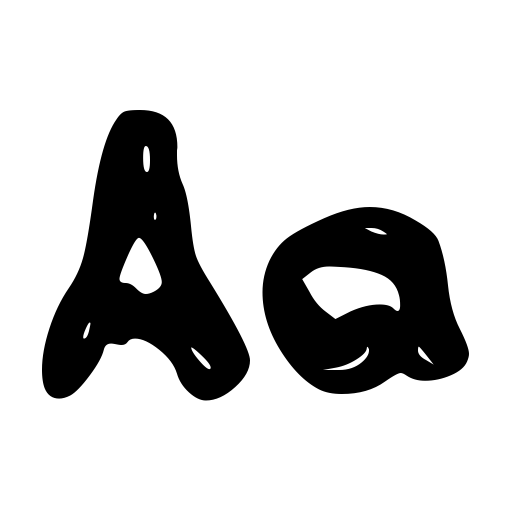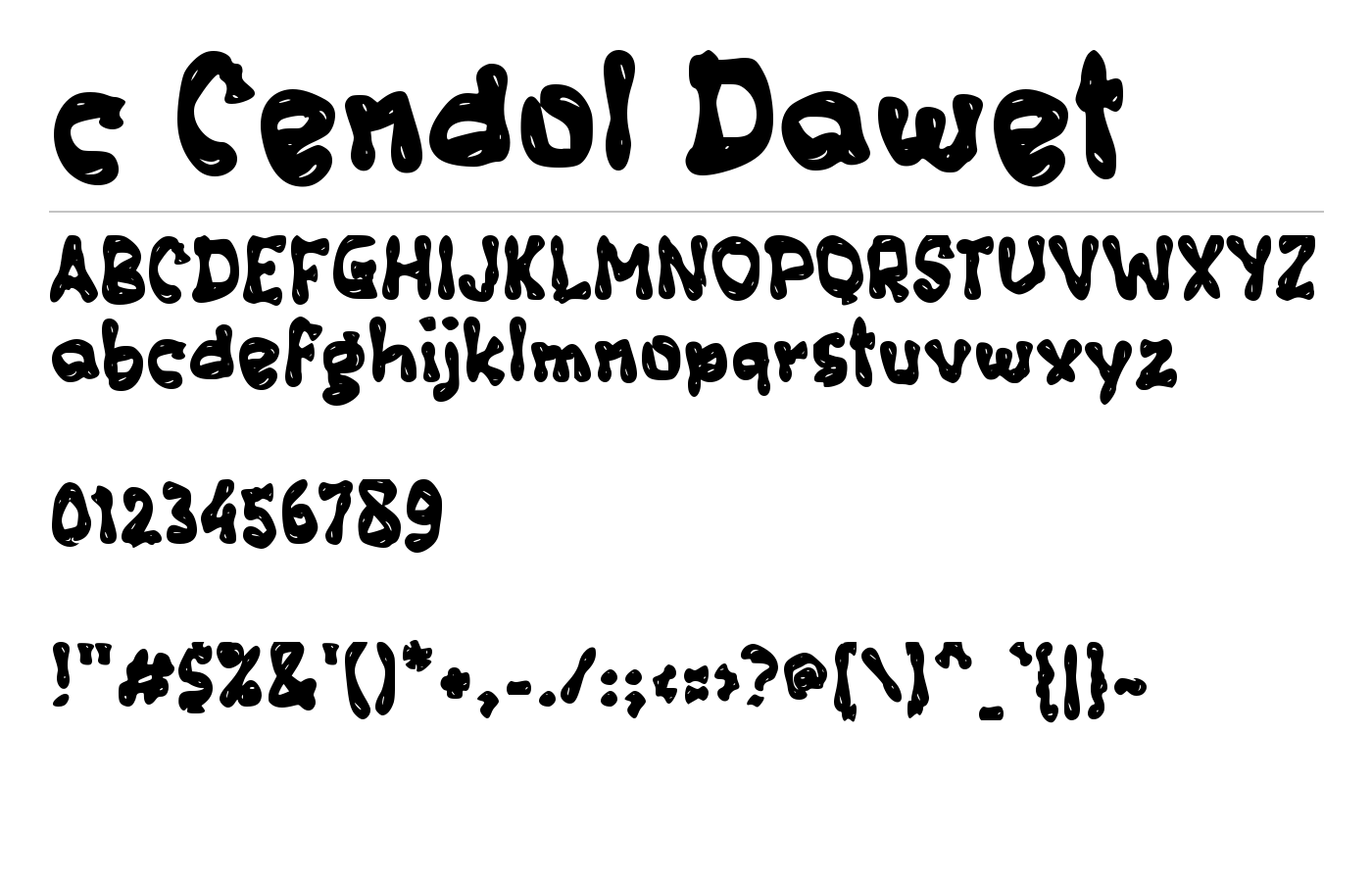
Cendol Dawet is a playful and bold handwritten font that features thick, irregular strokes with a slightly wobbly, organic feel. Its lively and informal style makes it perfect for designs that want to convey creativity, fun, and a casual vibe, such as children’s materials, crafts, or eye-catching headlines. The font's distinct character shapes and strong presence work best in display use where personality is key.
c Cendol Dawet Font
About c Cendol Dawet Font